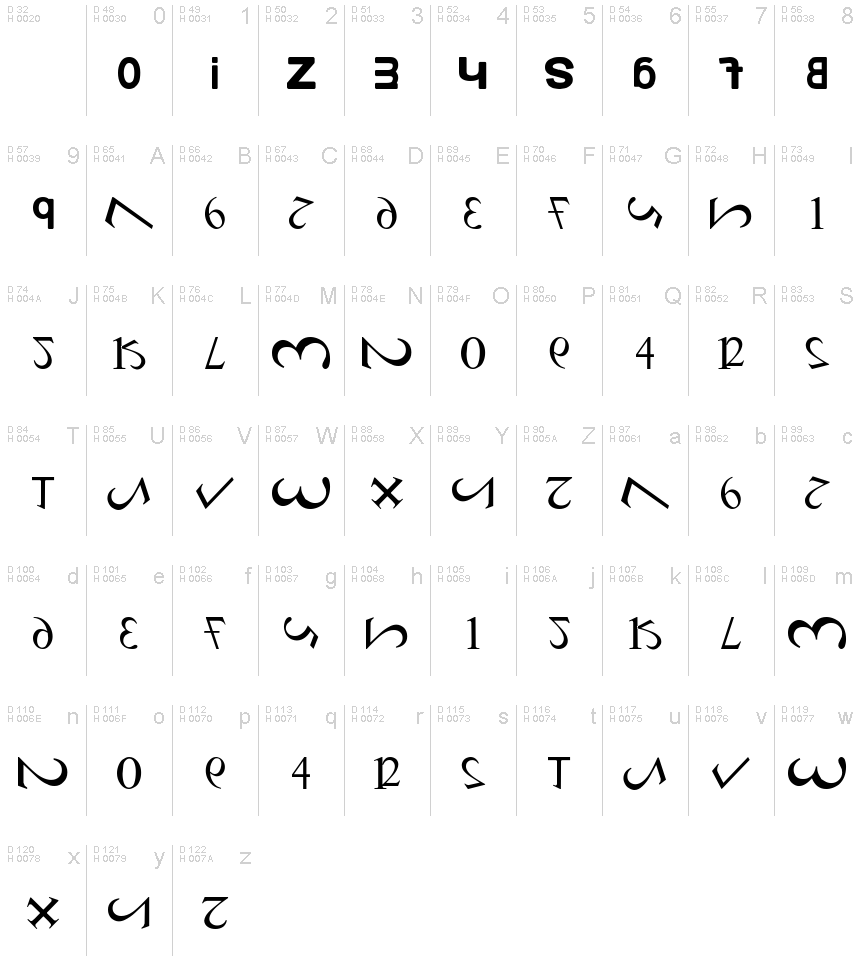
Numero
Numero is a captivating display font that challenges conventional typographic boundaries. Designed by Avinash Singh, this unique typeface seamlessly blends alphabets and numerals, creating a visually striking and unexpected fusion. The use of common typefaces like Times New Roman for letters and Arial for numbers adds an intriguing layer of familiarity and contrast.
This innovative approach allows Numero to transcend its utilitarian function, transforming it into a versatile design tool. Its bold, eye-catching aesthetic lends itself well to headlines, branding, and editorial applications, where it can add a touch of unconventional elegance and playfulness. Numero's ability to simultaneously convey both textual and numerical information makes it a compelling choice for a wide range of creative endeavors.